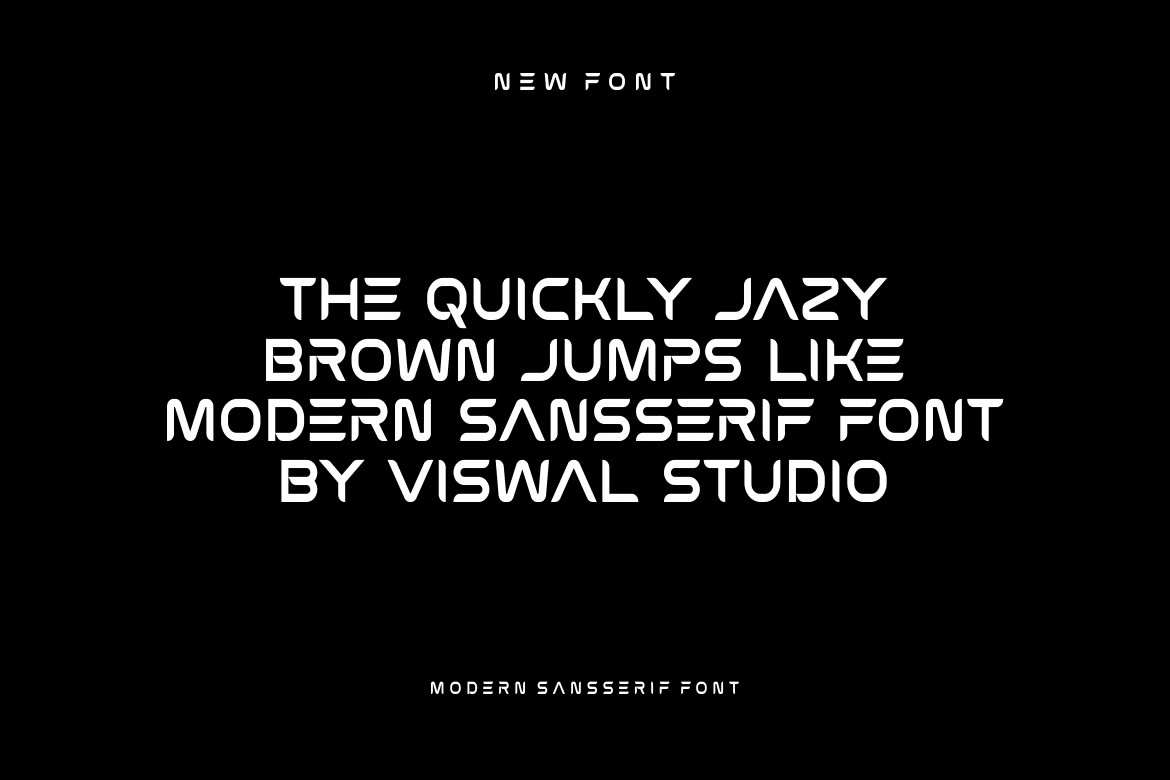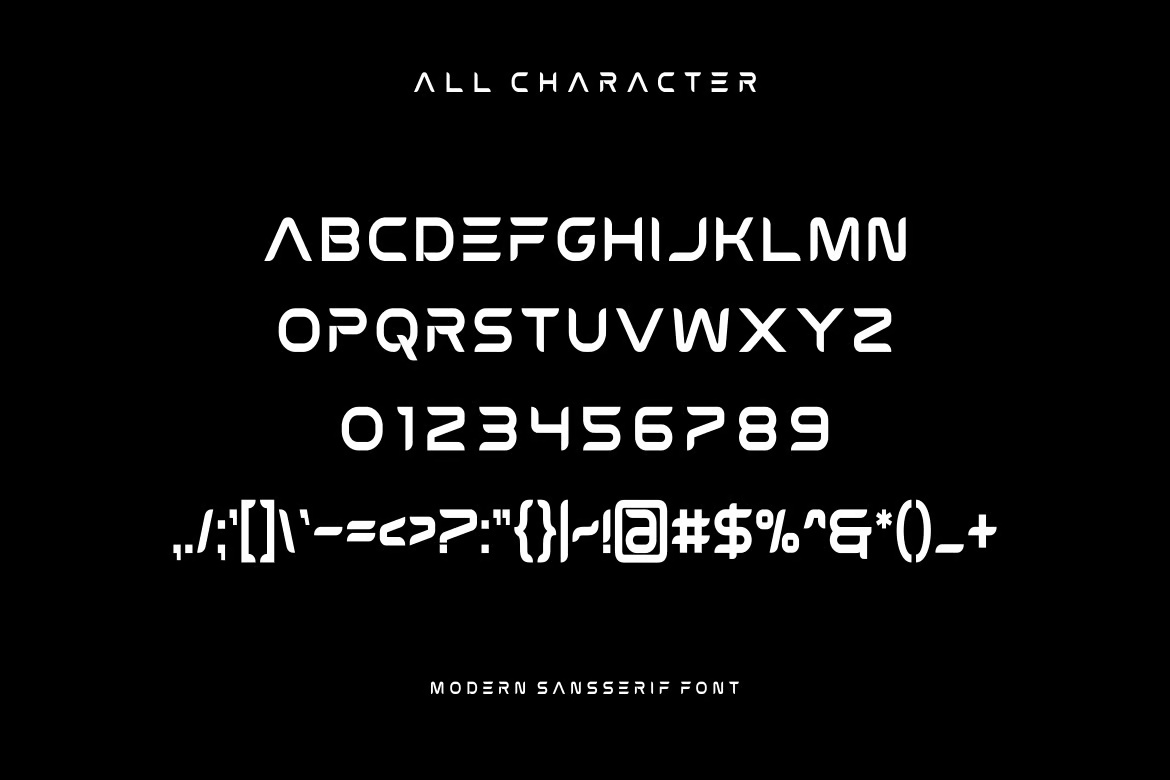
Black Shiva – Modern Sans Font
Black Shiva is a versatile font suitable for badges, labels, logos, branding, magazines, posters, and more. It features uppercase and lowercase letters, numerals, punctuation, multilingual support, and OpenType features. For amazing designs, you can mix it with other fonts as a complement.
Black Shiva – Modern Sans-Serif Font